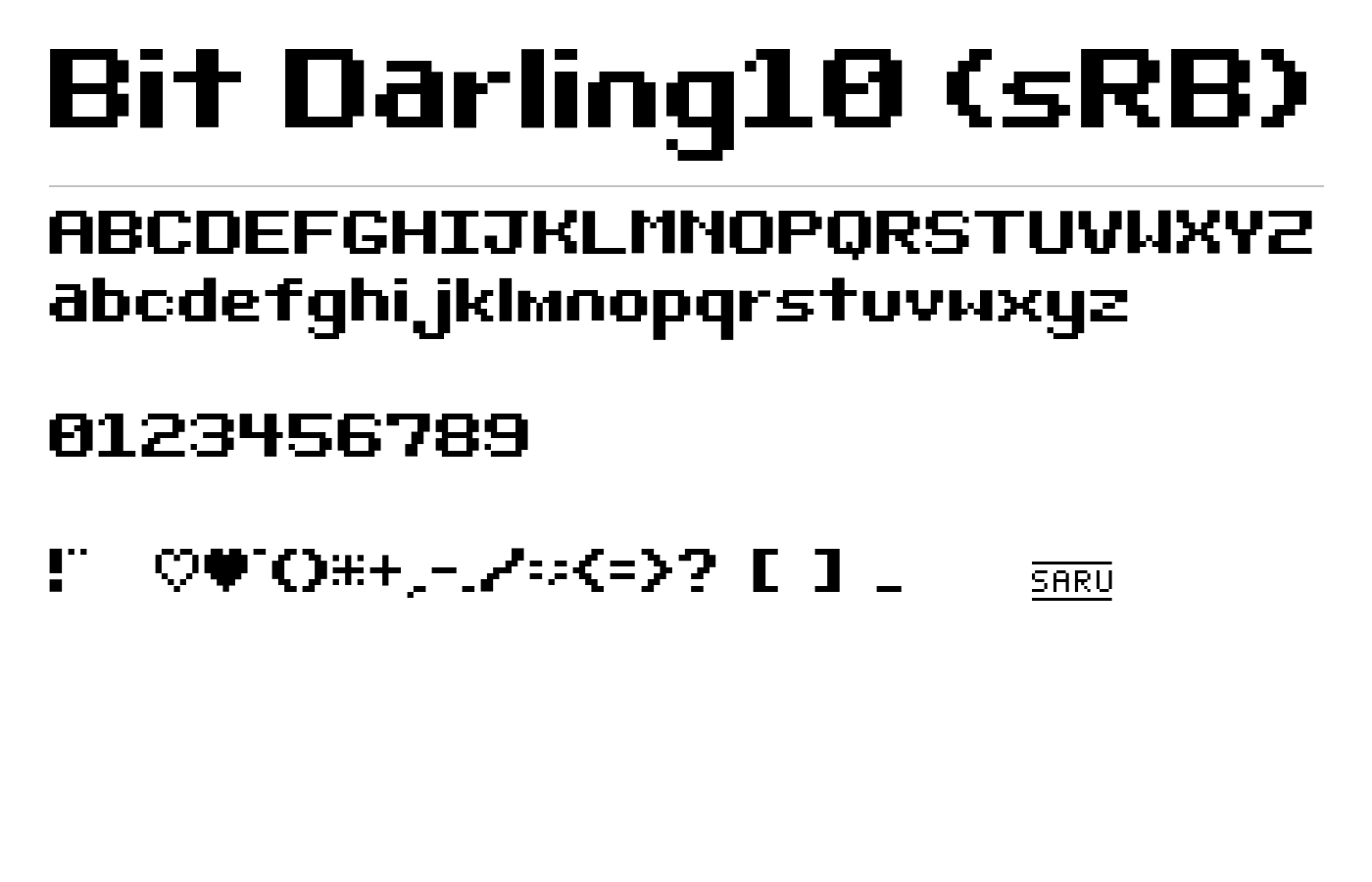
Bit Darling10 (sRB) is a pixelated, monospace sans serif font that evokes a retro digital or 8-bit video game aesthetic. Its blocky, square letterforms with uniform stroke weight and minimal contrast create a technical, nostalgic feel, making it ideal for gaming interfaces, vintage digital-themed designs, or creative projects seeking an unmistakably pixel-art style. This font works best in headlines, logos, and display settings where its distinct geometric charm can stand out clearly.
Bit Darling10 (sRB) Font